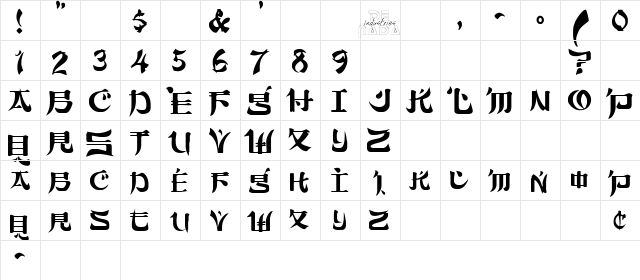
Sumdumgoi Regular
Design Context for Sumdumgoi Typeface
Sumdumgoi is a composed and adaptable typeface that performs quietly and consistently across a wide range of design contexts.